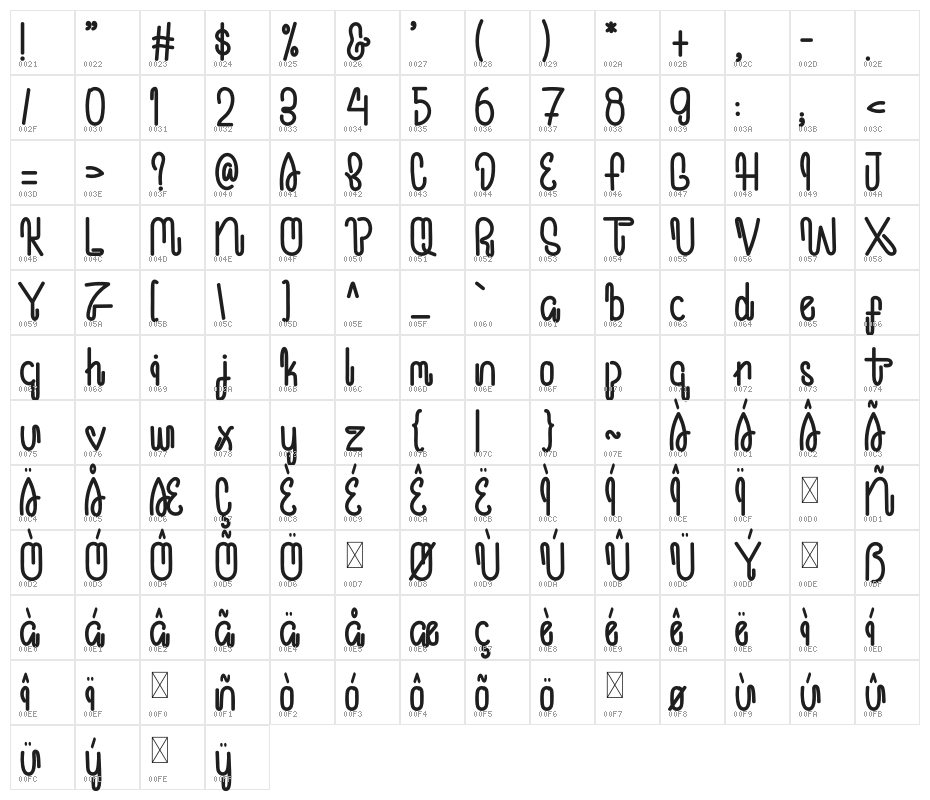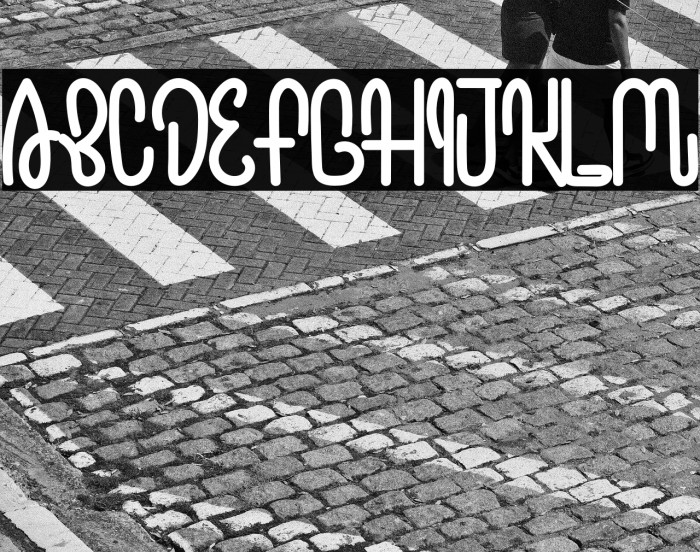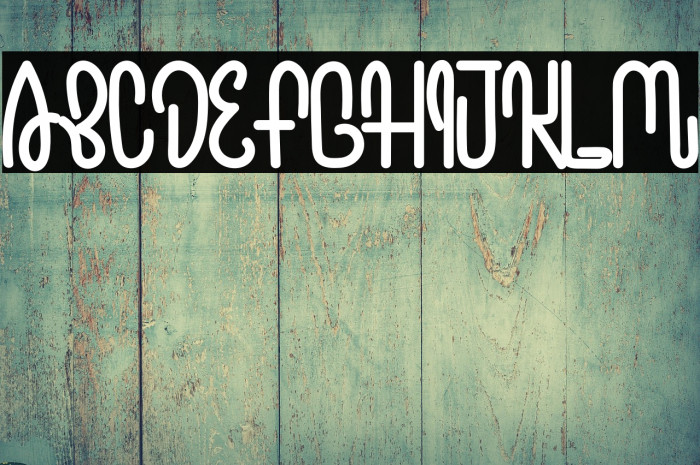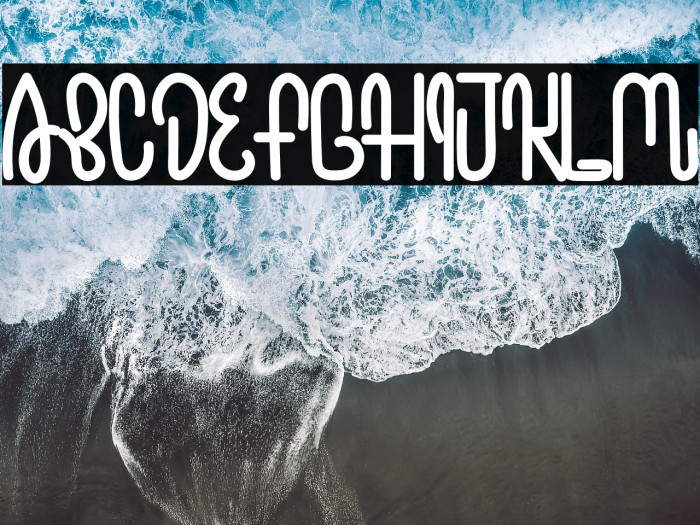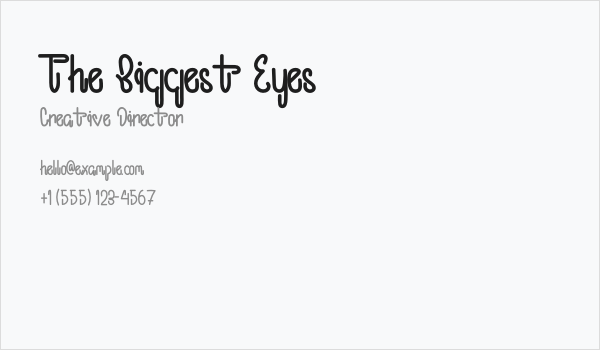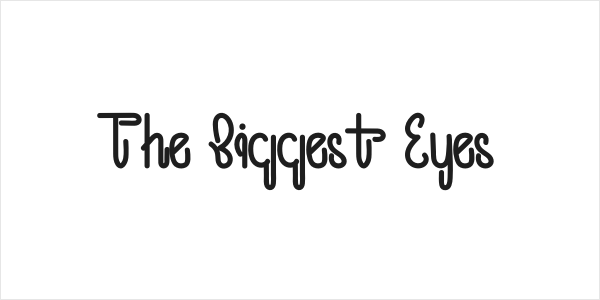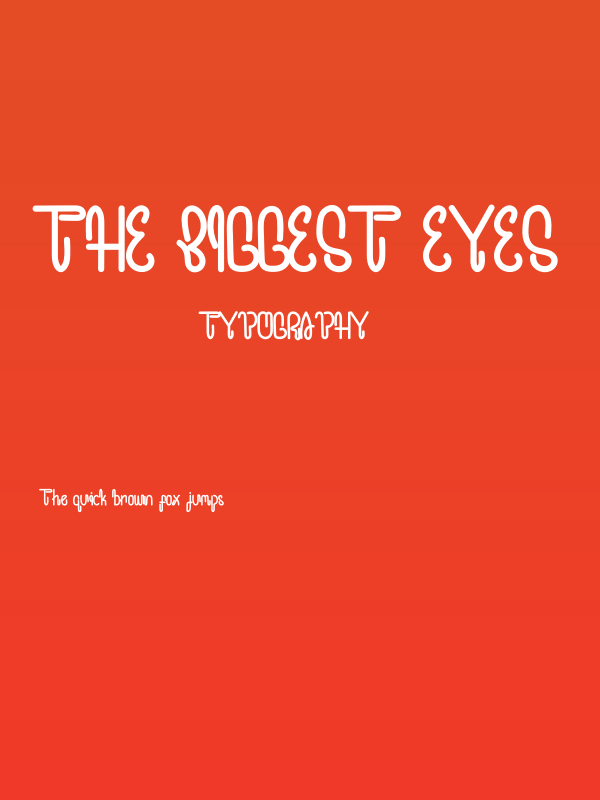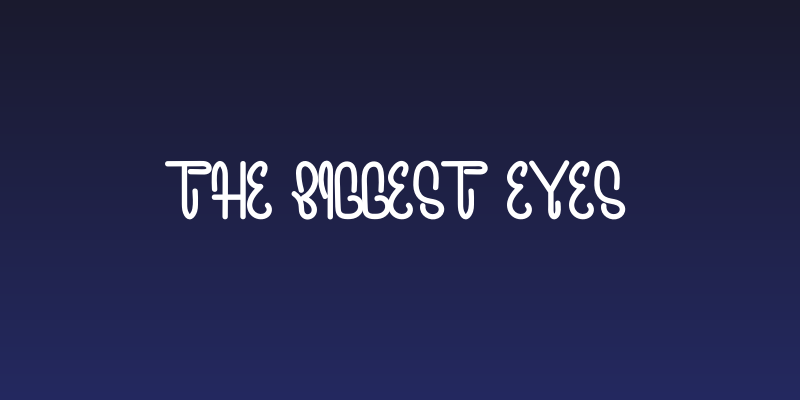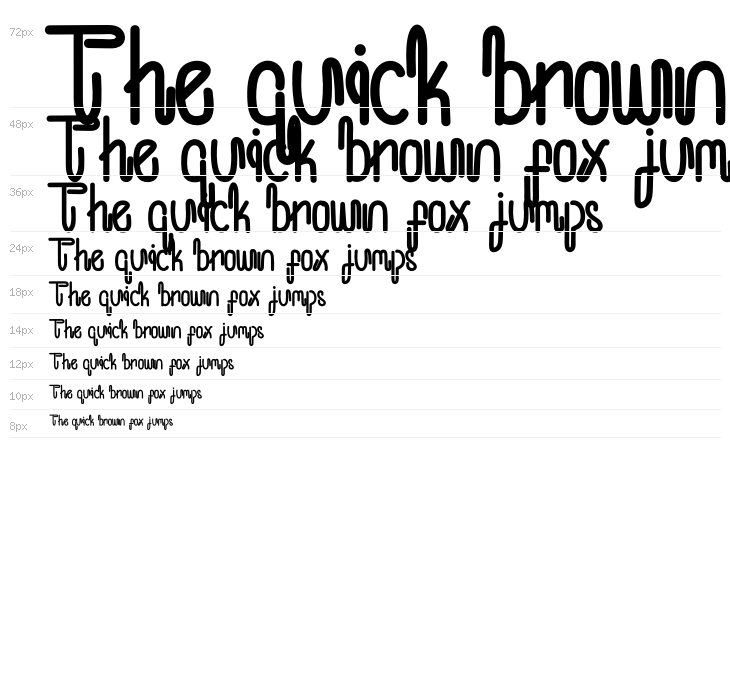
The Biggest Eyes Font
The Biggest Eyes Description
This font features a playful and bold design with a unique, hand-drawn aesthetic. The characters are rounded and interconnected, giving a sense of fluidity and movement. The uppercase and lowercase letters maintain a consistent style, with elongated strokes and a whimsical flair. Numbers and special characters follow the same playful theme, making the font suitable for creative and informal applications. The overall appearance is eye-catching and distinct, perfect for projects that require a touch of personality and fun.